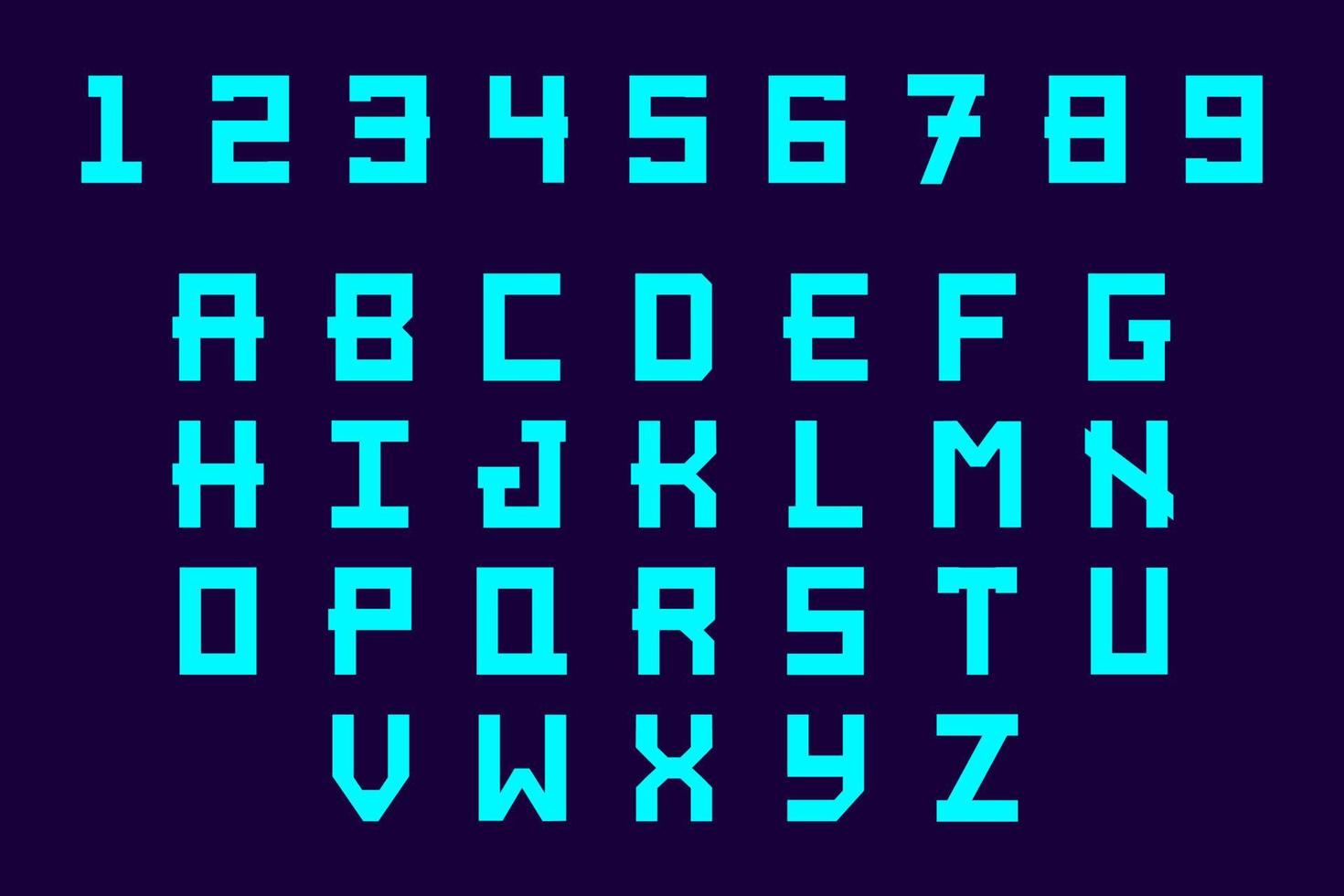
Abstract hi tech futuristic numbers and characters. Blue modern uppercase high technology typefaces alphabet abs and numbers isolated on blue background. Pro Vector